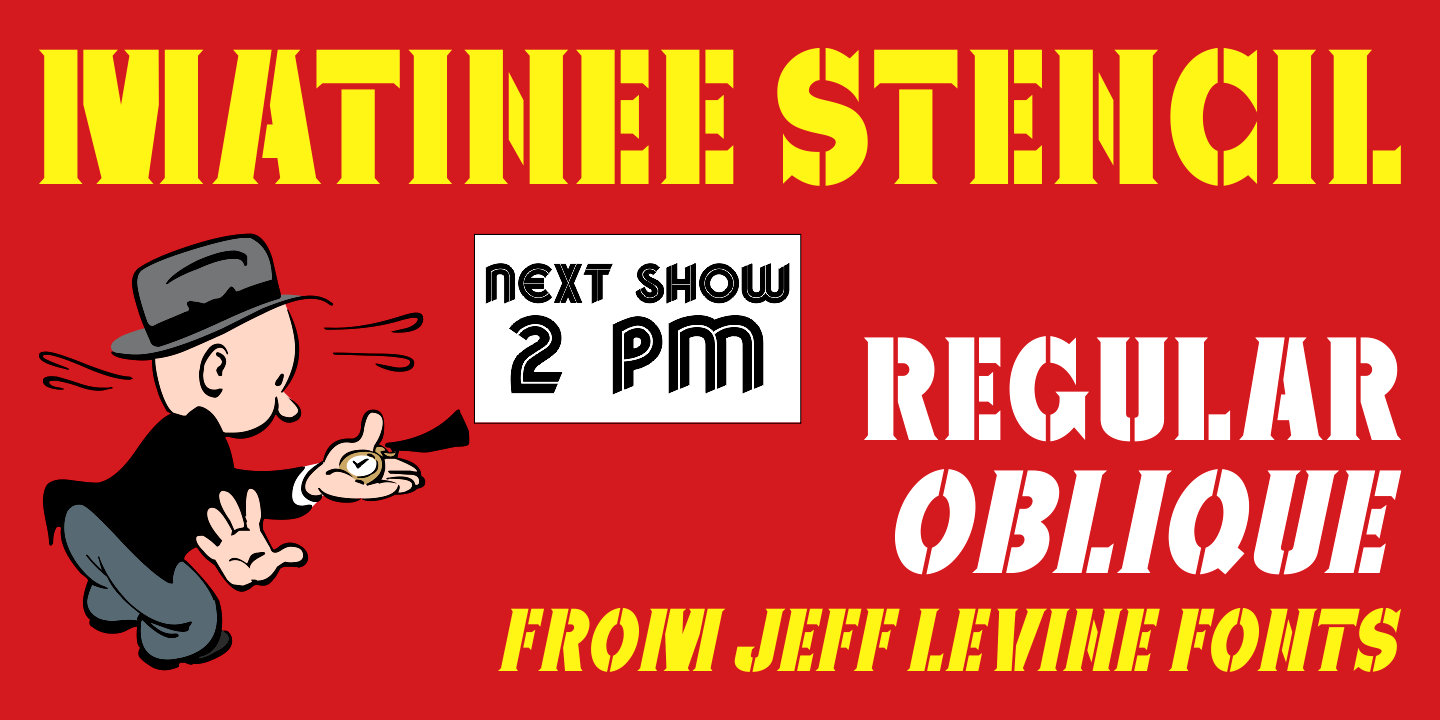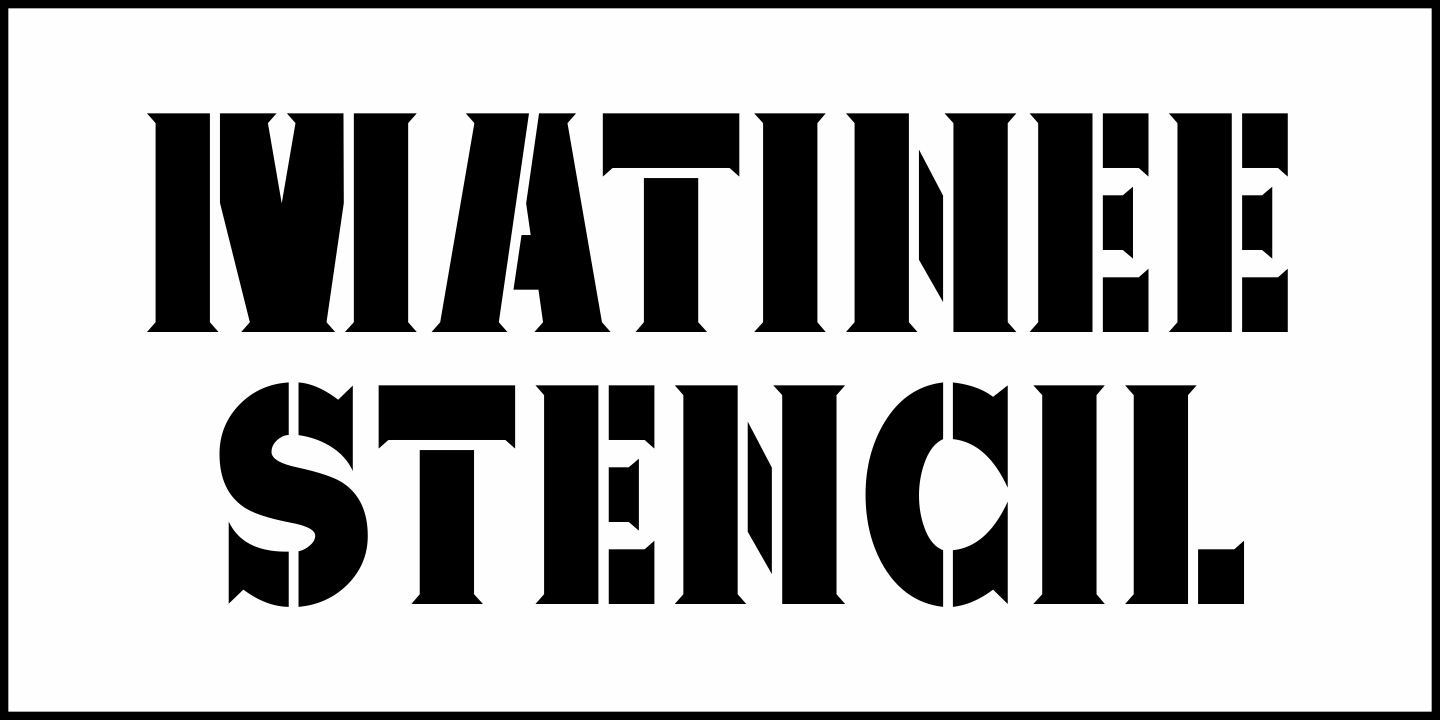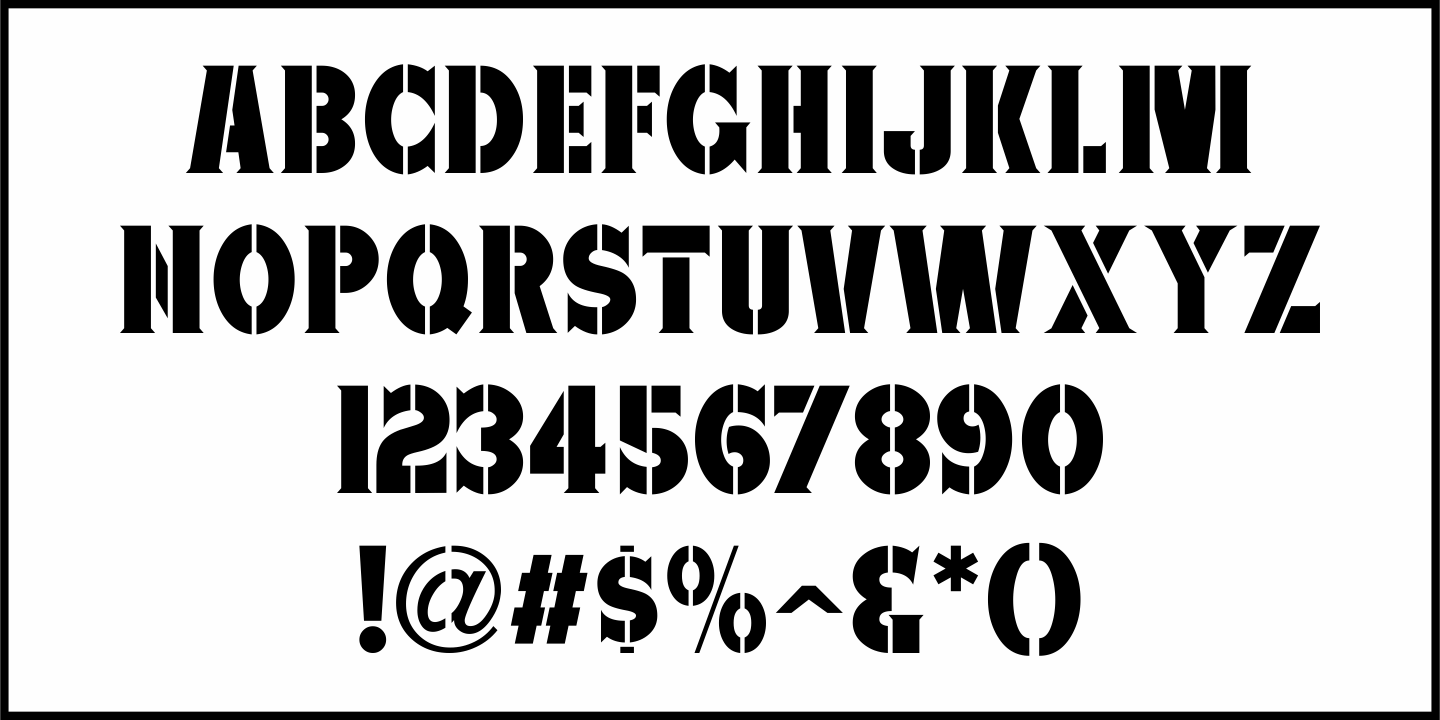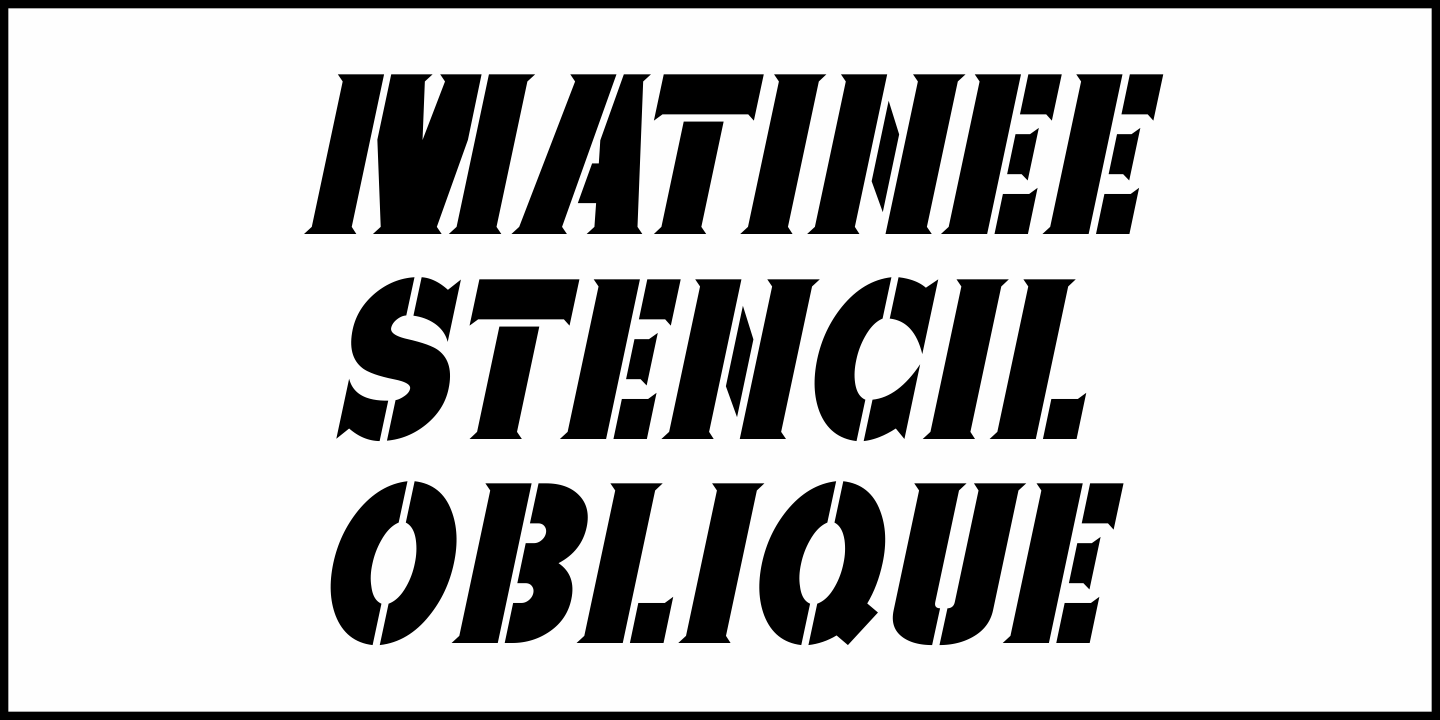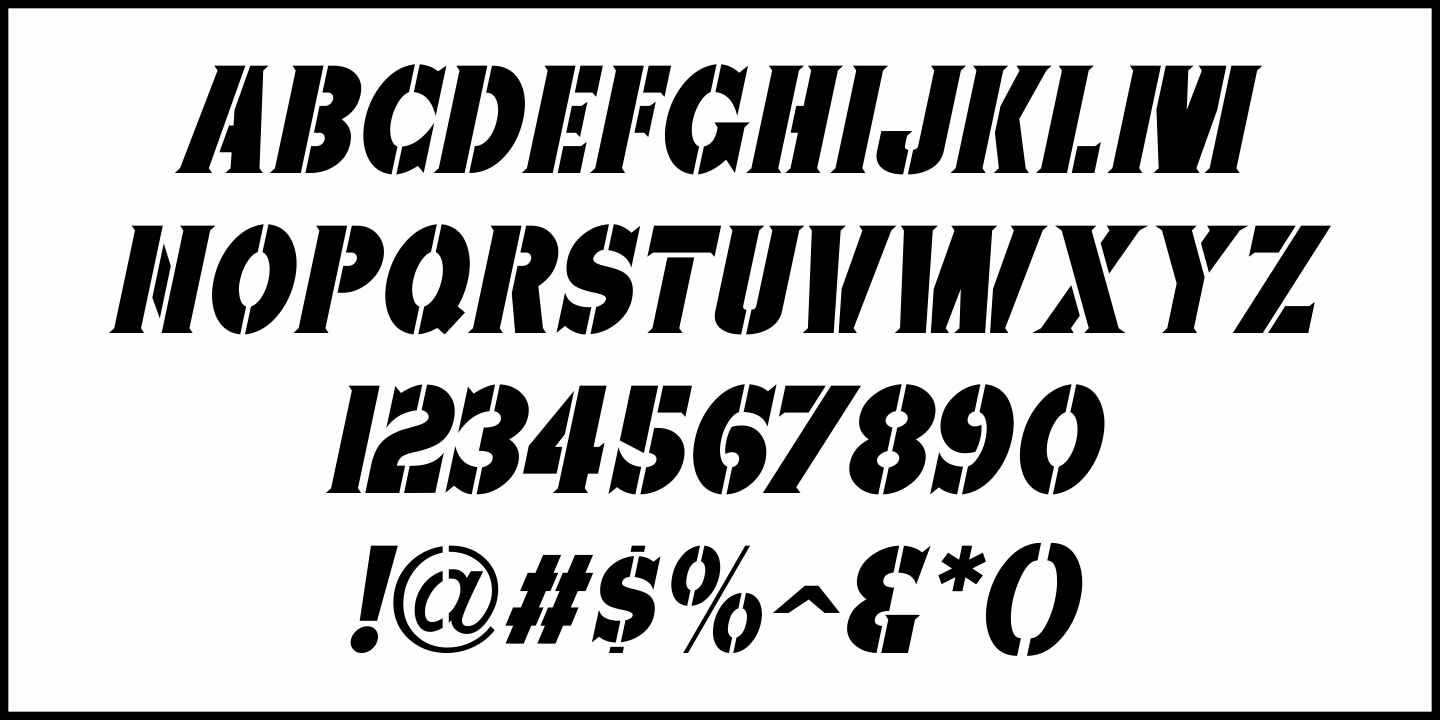
Matinee Stencil
The poster for a 1947 film entitled 'The Unfaithful” was hand lettered in an extra-bold spurred serif design emulating a stencil typeface.
This served as the working model for Matinee Stencil JNL, which is available in both regular and oblique versions.